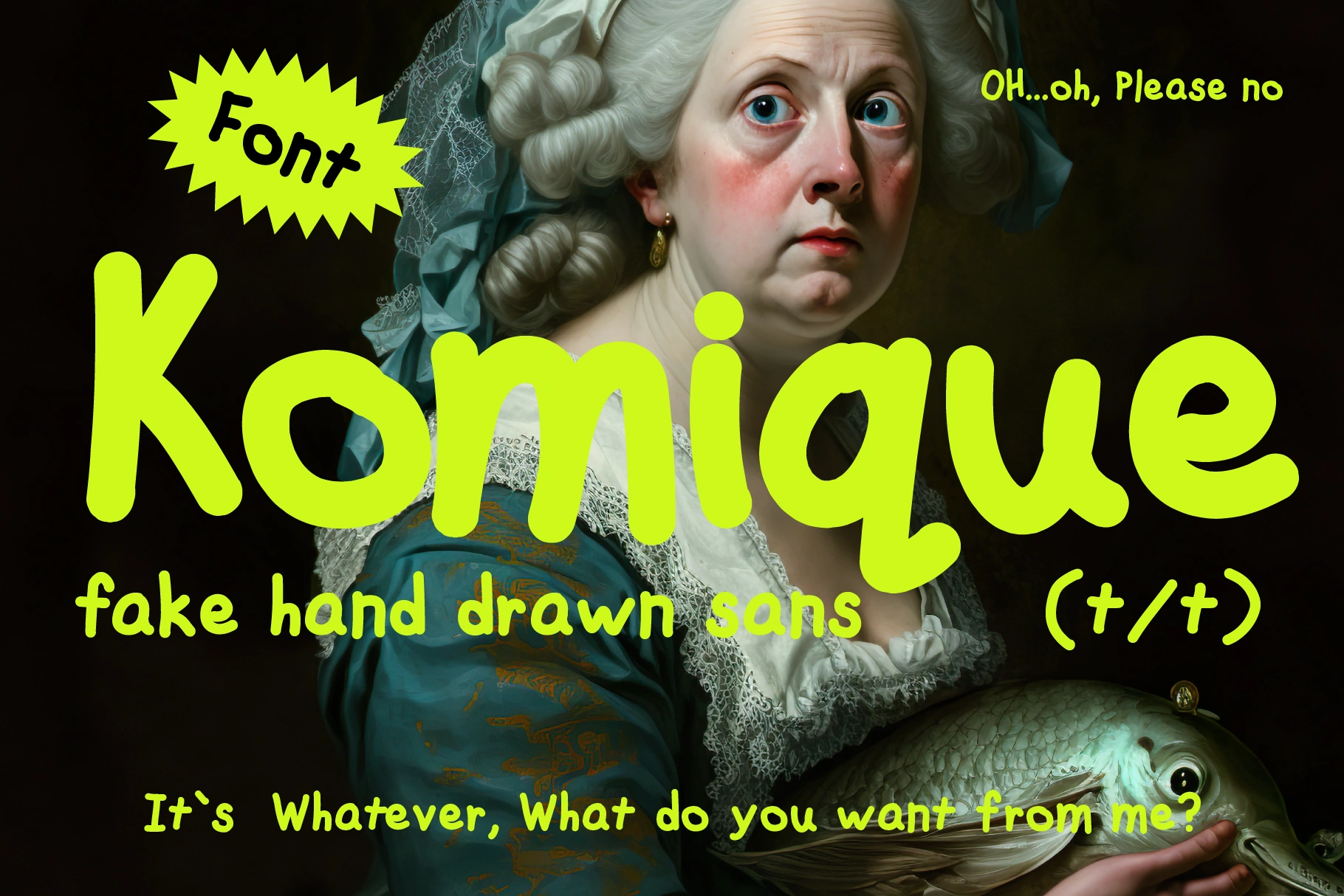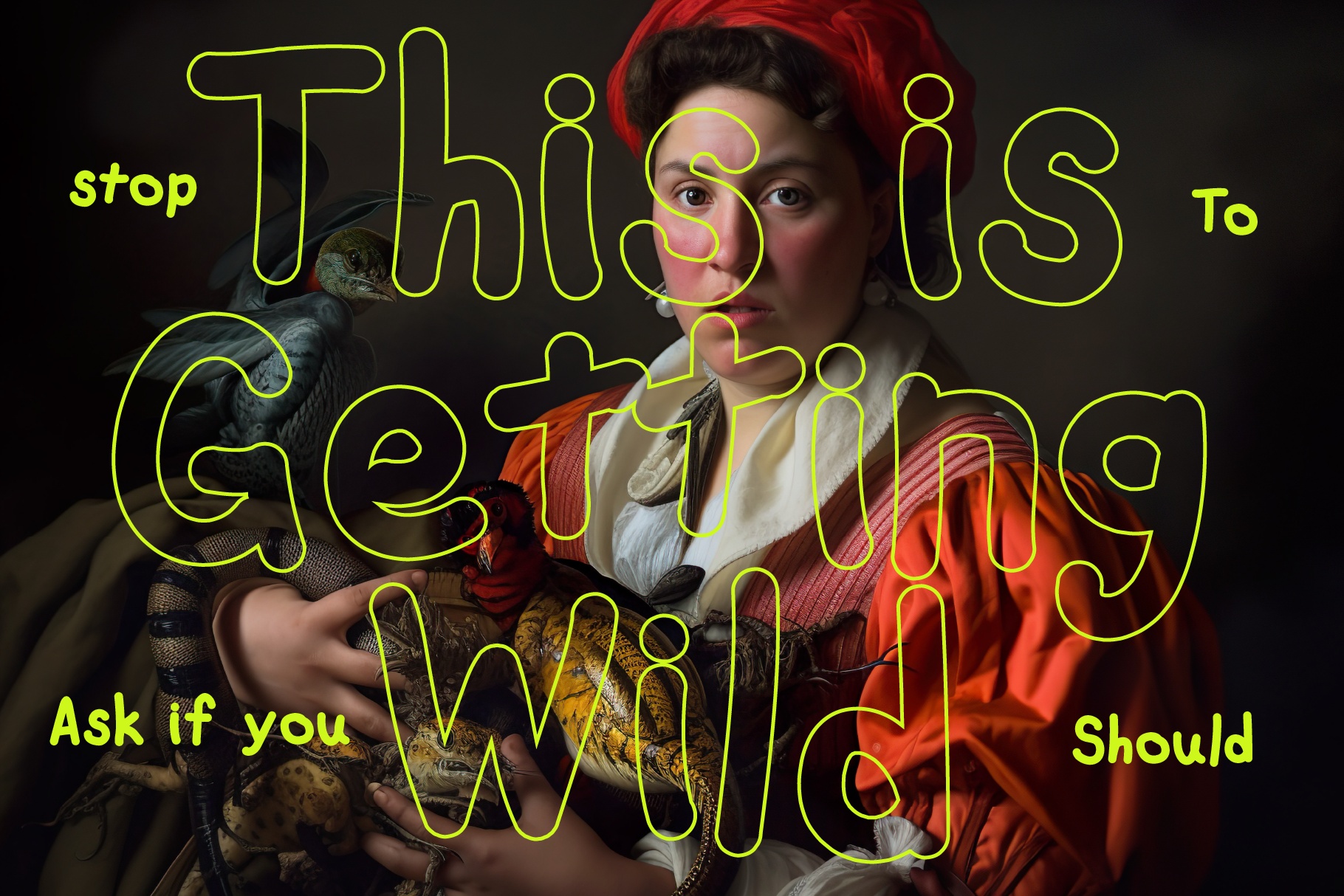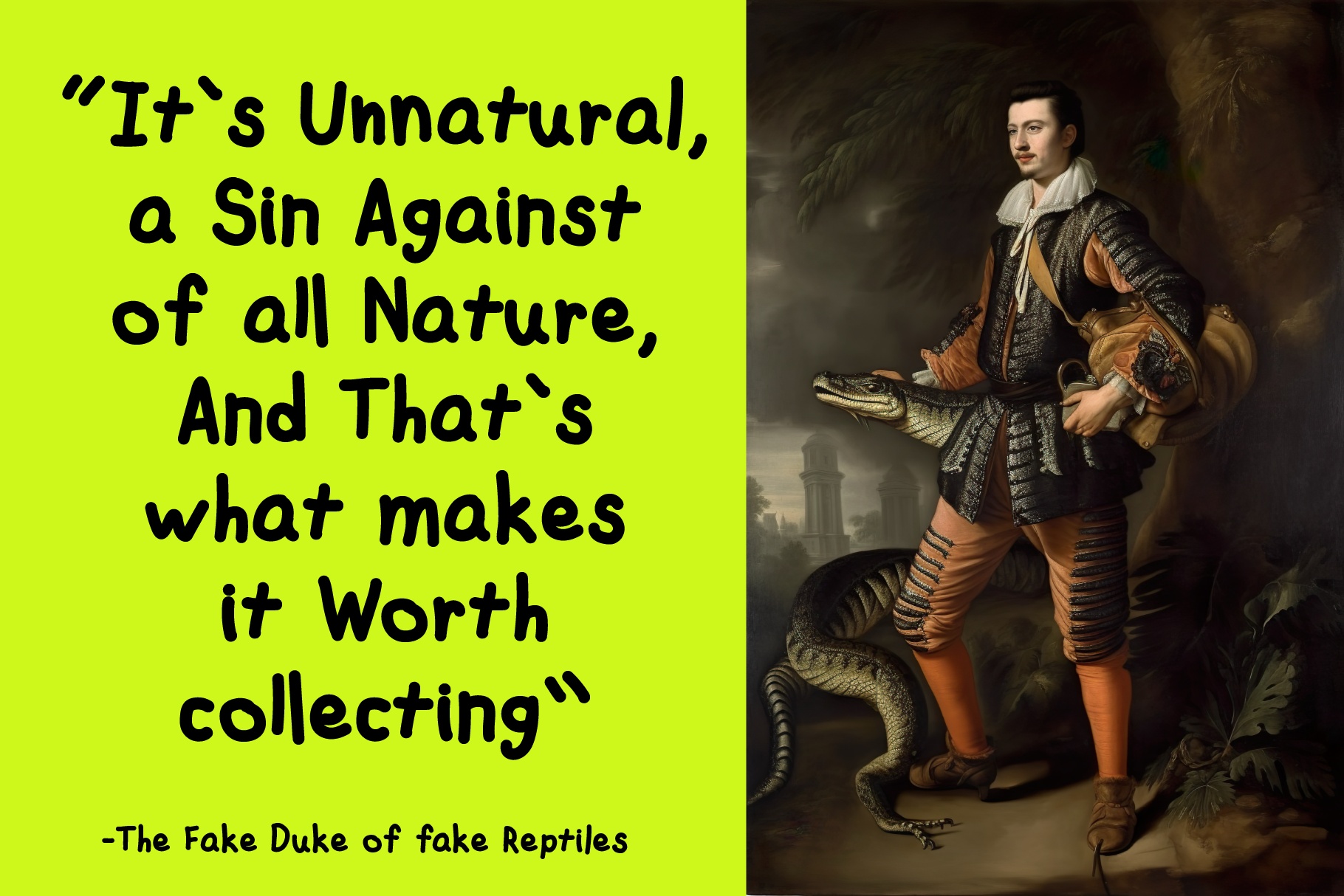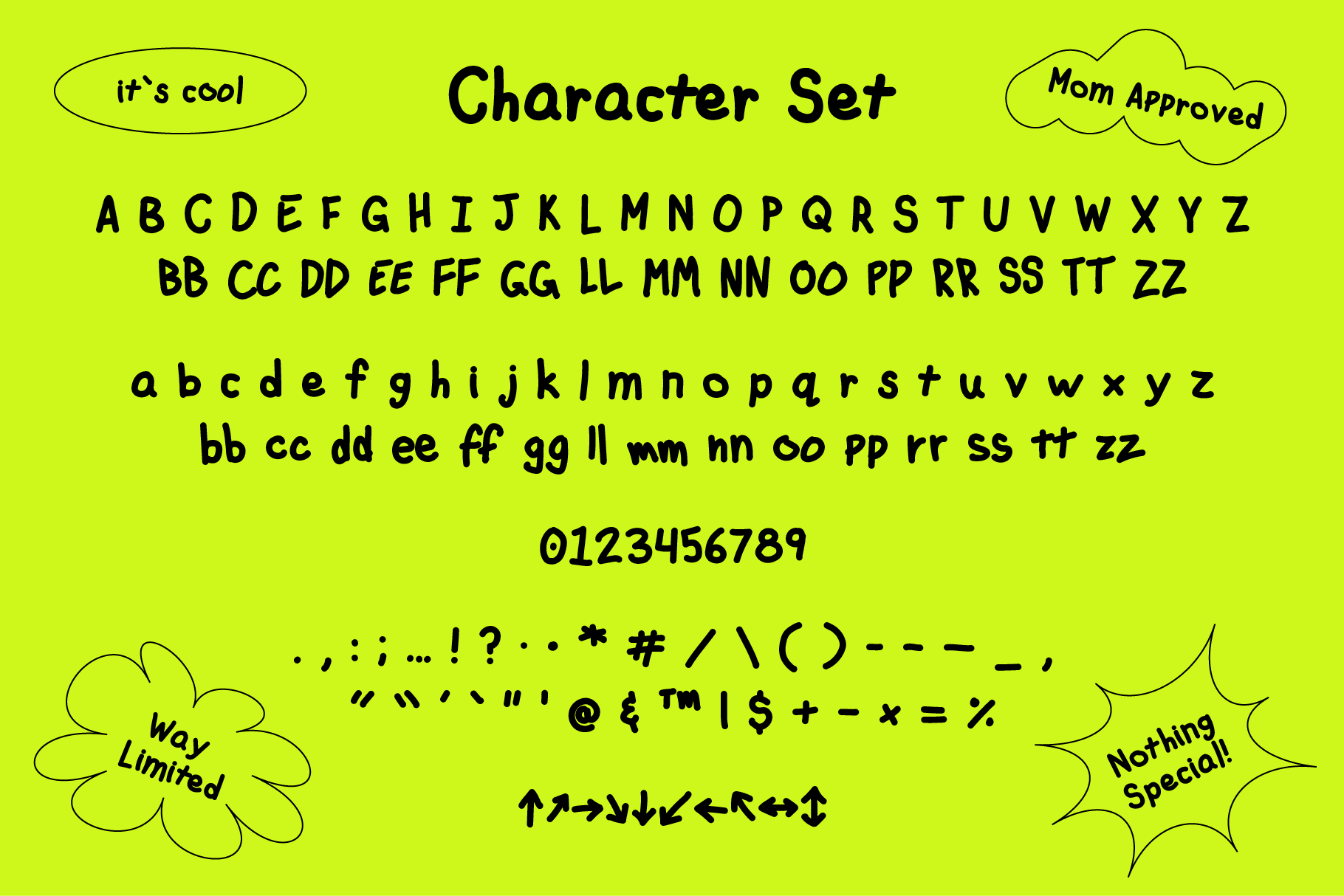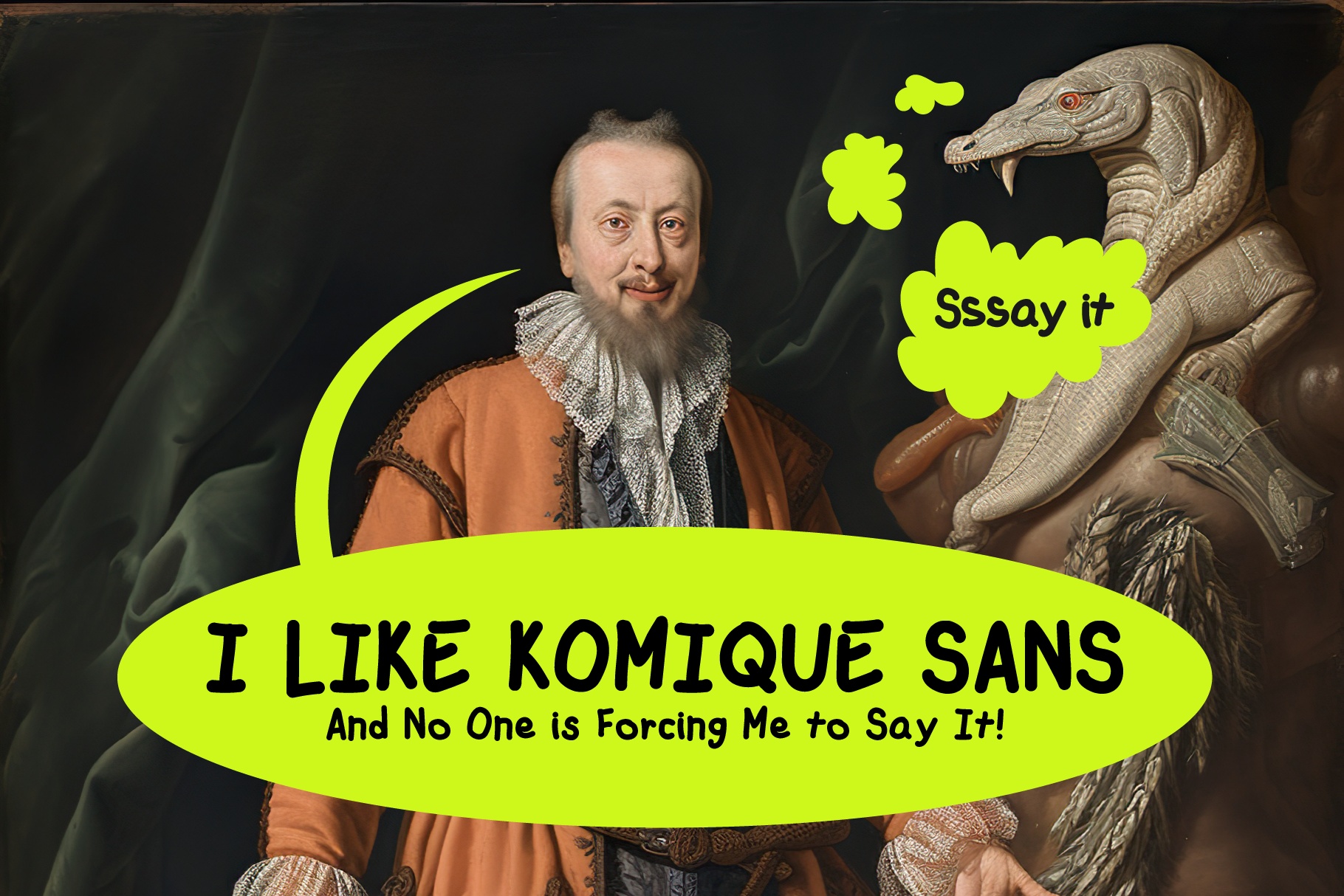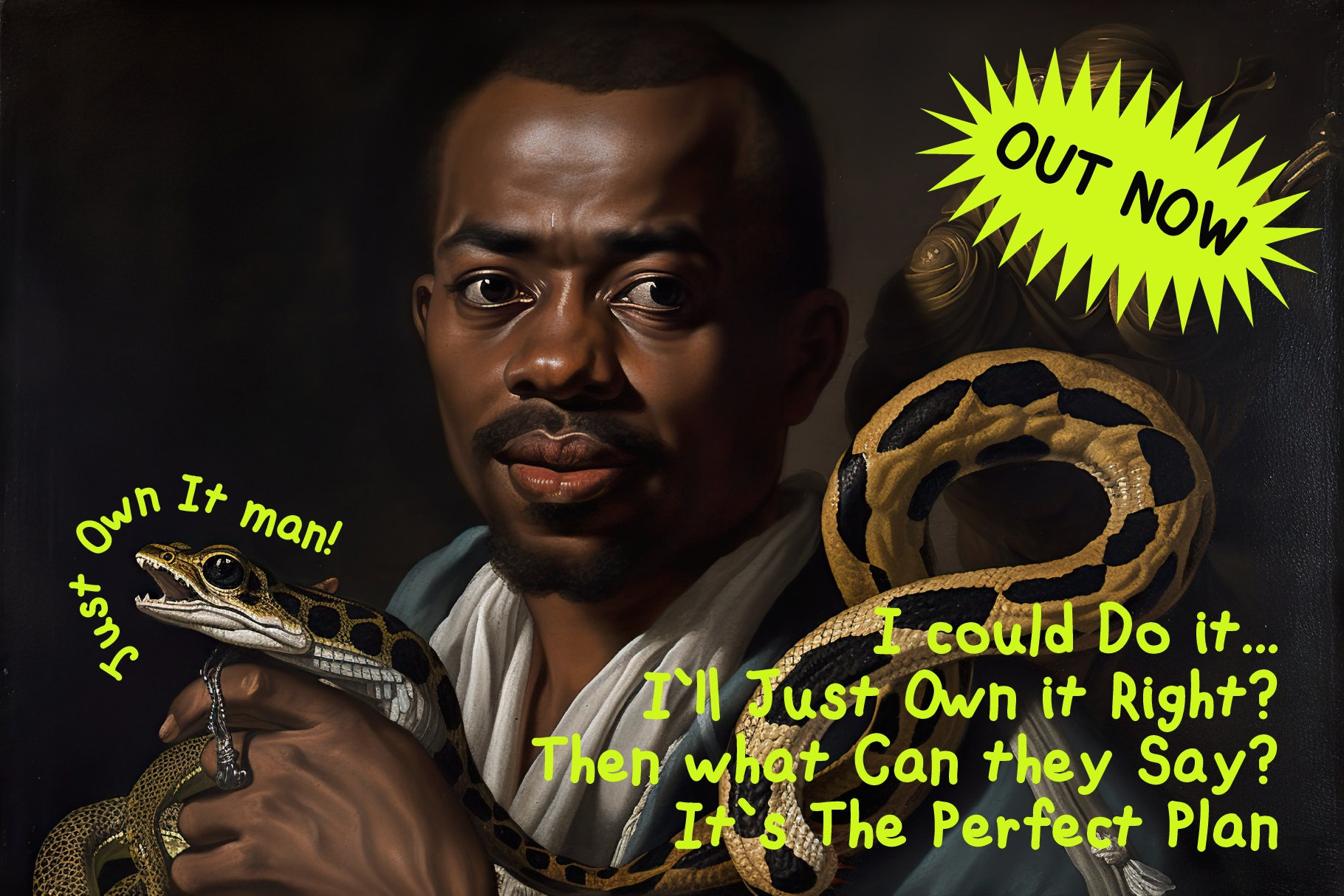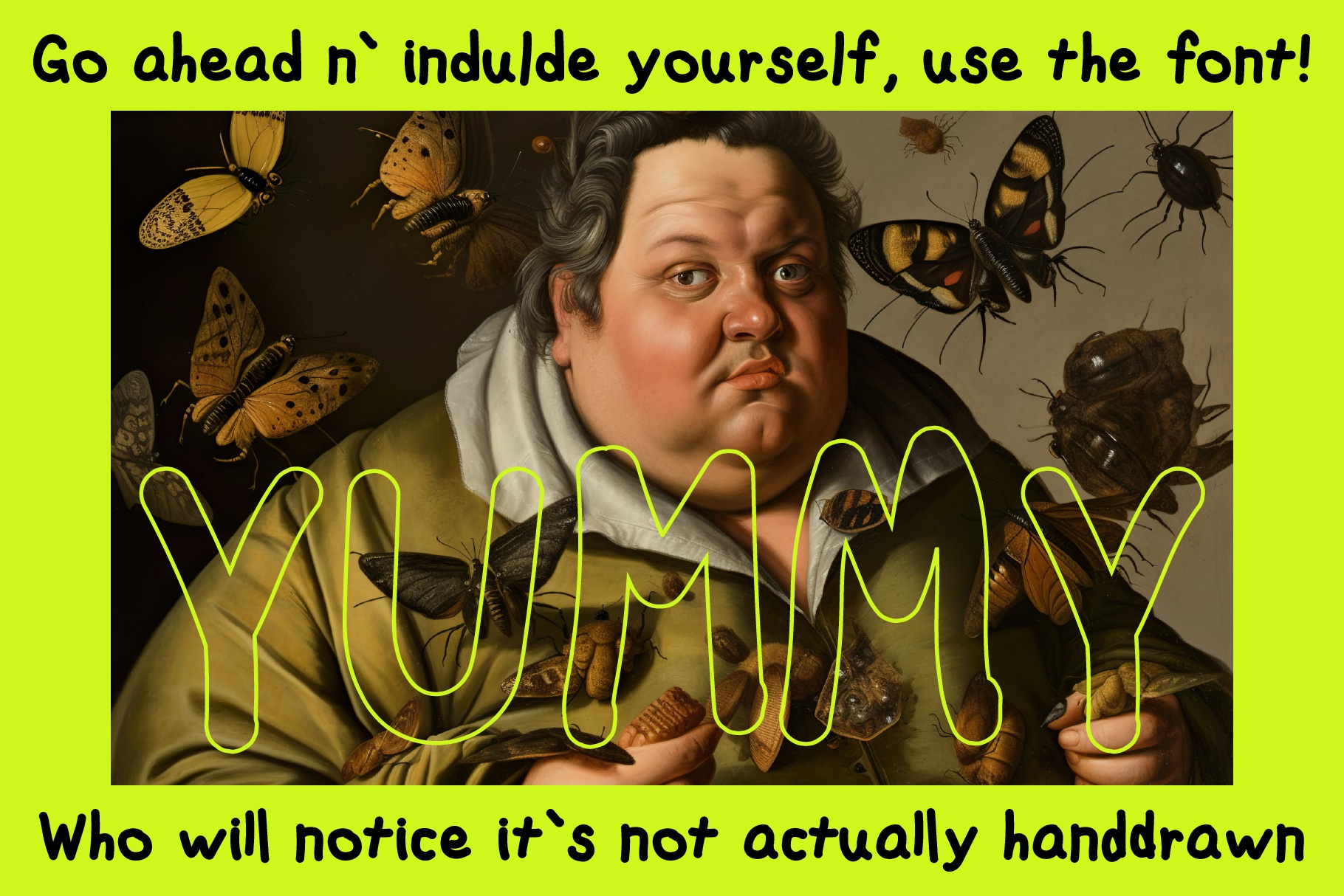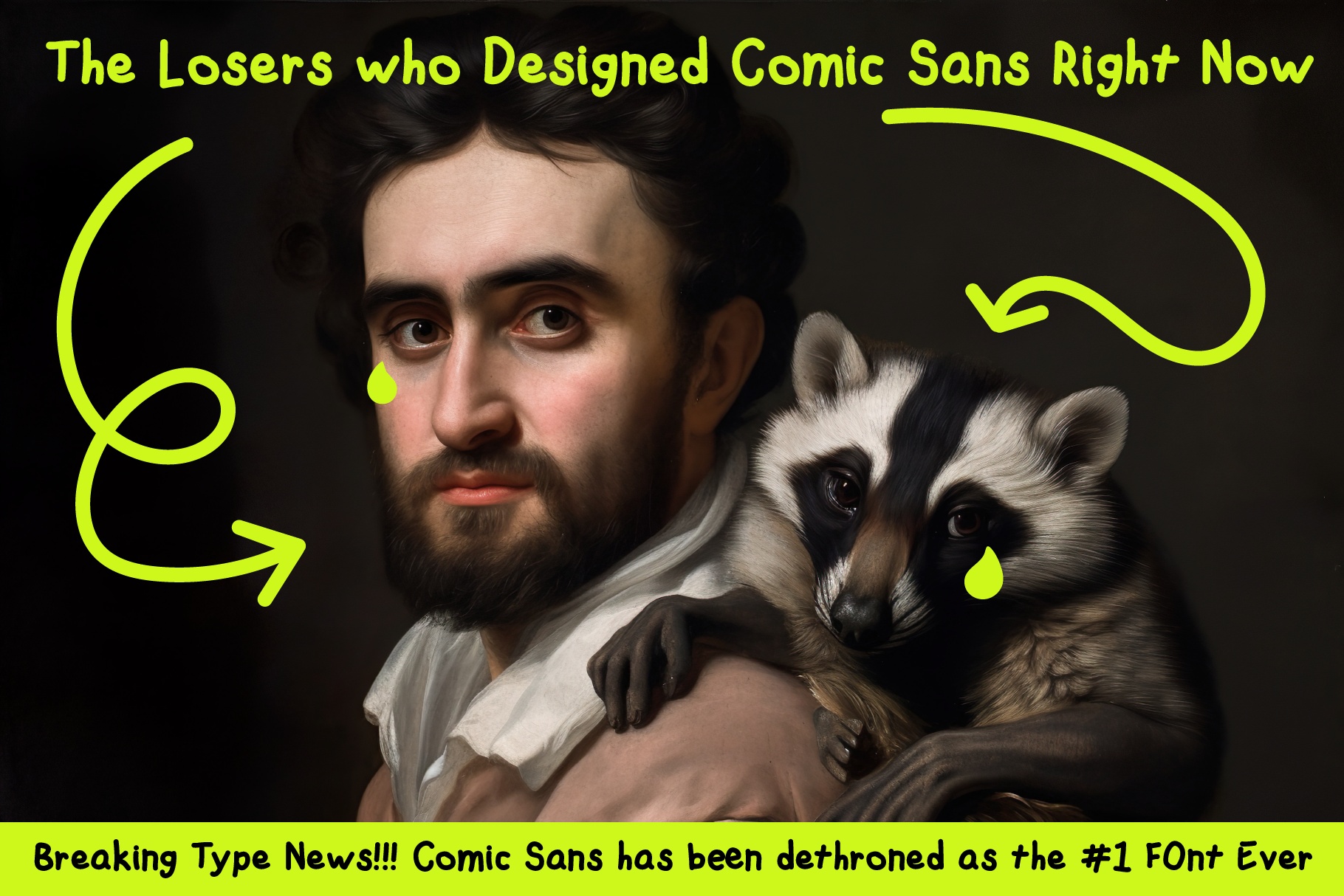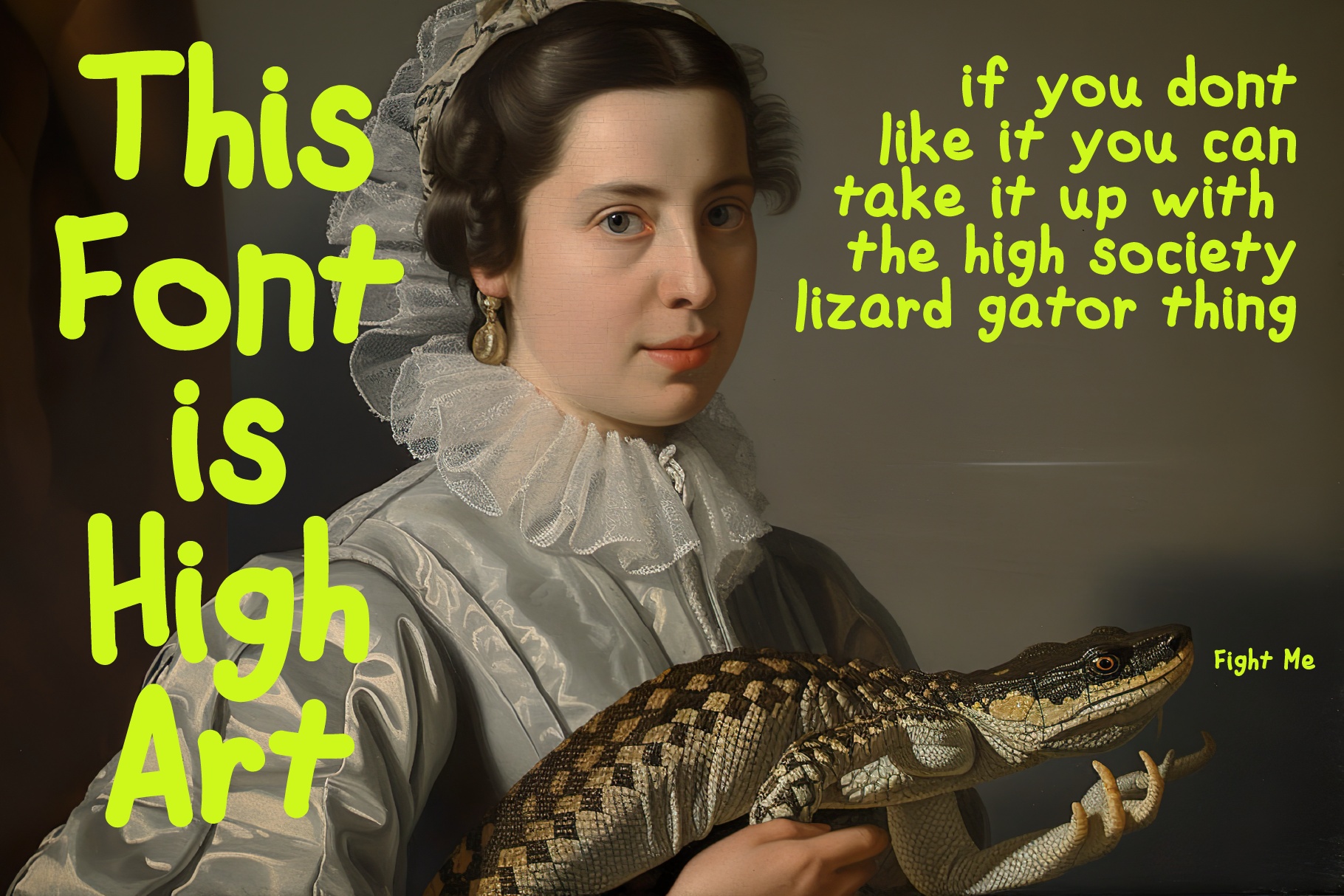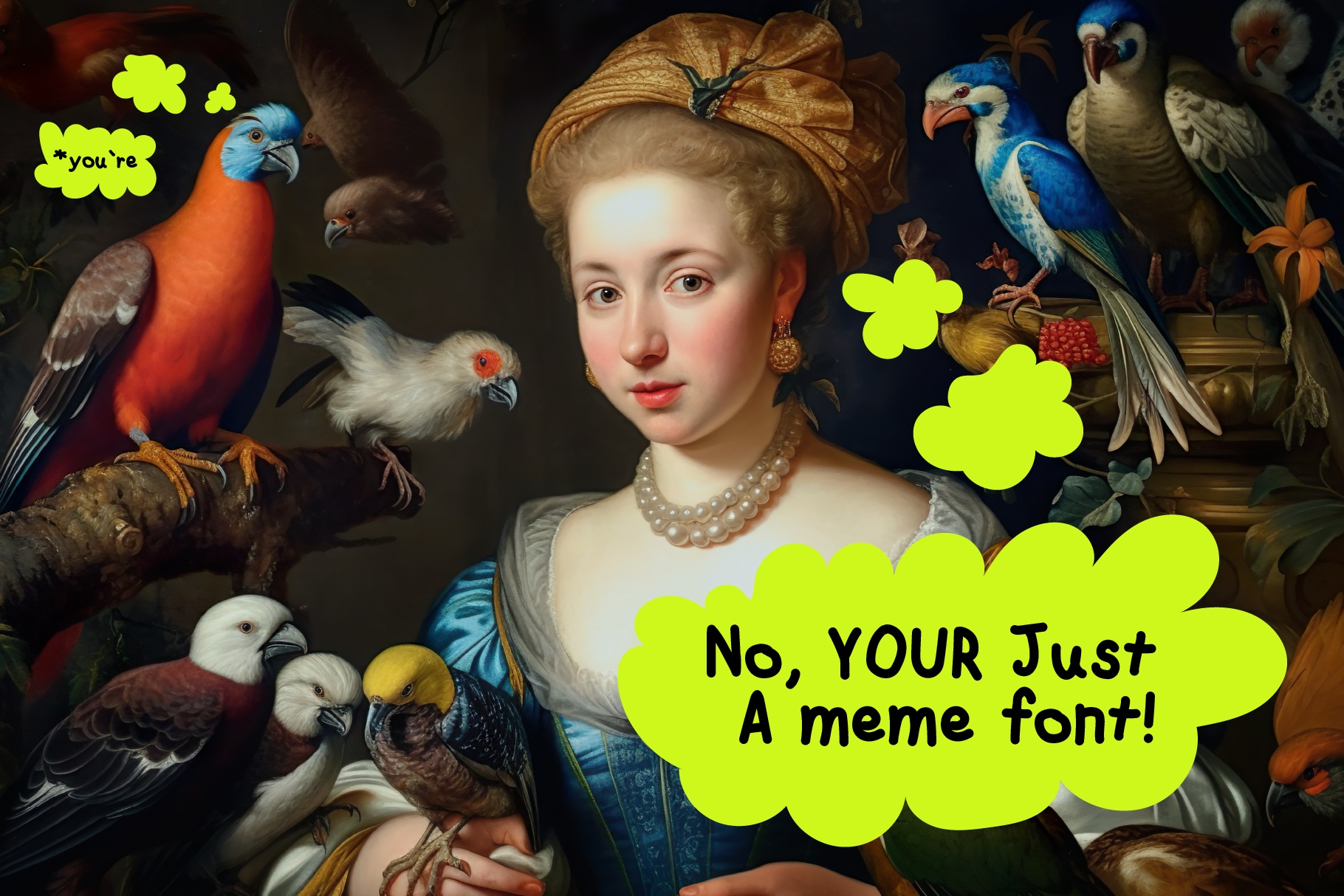
Komique - Playful Hand Drawn Sans Font
Komique is a playful sans font built to look hand-drawn without losing vector precision — round, bouncy letterforms, uneven baselines, and thick marker-style strokes keep every line loud and a little goofy. Doubled letters swap in through built-in contextual alternates, so words like "bookkeeper" skip the stamped, repeated-letter look that flat comic-style sans faces usually fall into.
Komique works best in short, punchy settings where the wobble reads as personality, not noise. Use it for kids' branding, meme graphics, greeting cards, snack and toy packaging, social posts, poster titles, editorial pull quotes, novelty merch, and party invitations.
- uppercase & lowercase;
- numerals, punctuation & symbols;
- arrows;
- contextual alternates for double letters